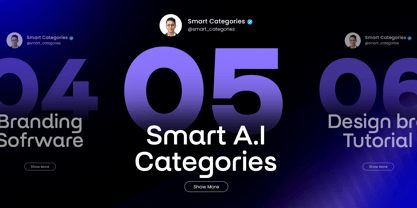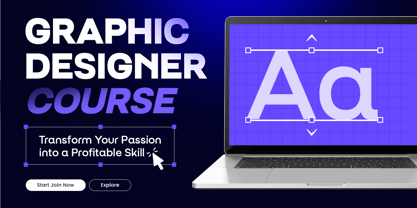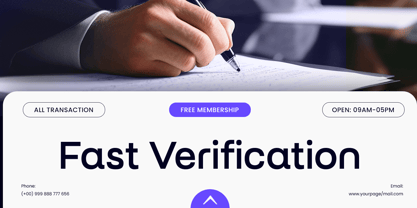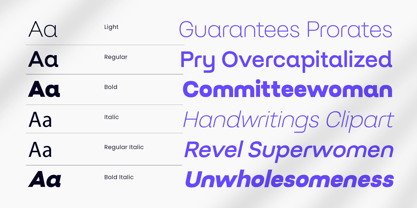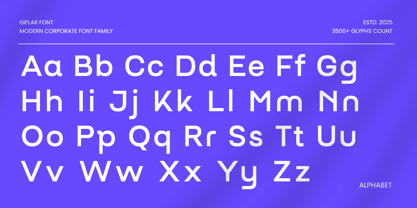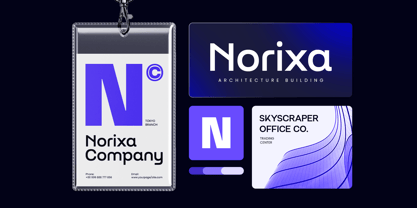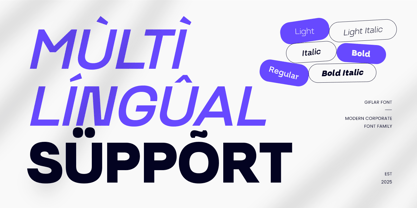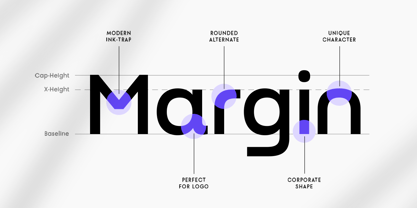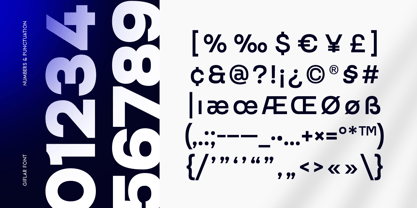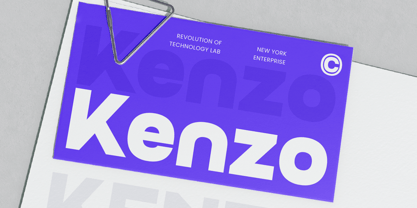
GIFLAR is a modern corporate font crafted for professional branding and business-focused design projects. With its clean, geometric letterforms, GIFLAR offers a polished and versatile style perfect for:
Company logos
Business presentations
High-impact marketing materials
Whether you’re designing for a corporate identity, a consulting firm, or a modern digital platform, GIFLAR provides a sleek and professional touch. Its balance of elegance and clarity ensures your brand communicates confidence and credibility across all applications.
Font Features:
Clean, modern letterforms with a professional aesthetic
Ideal for logos, corporate branding, and business materials
Includes uppercase, lowercase, numerals, and punctuation
Minimal, sleek design suitable for both print and digital projects
OpenType features for advanced typographic flexibility
Multilingual Support:
Supports characters for a wide range of languages including:
Afrikaans, Albanian, Asu, Basque, Bemba, Bena, Breton, Chiga, Cornish, Dutch, English, Estonian, Filipino, Finnish, Friulian, Galician, German, Gusii, Indonesian, Irish, Italian, Kabuverdianu, Kalenjin, Kinyarwanda, Luo, Luxembourgish, Luyia, Machame, Makhuwa-Meetto, Makonde, Malagasy, Manx, Morisyen, North Ndebele, Nyankole, Oromo, Portuguese, Quechua, Romansh, Rombo, Rundi, Rwa, Samburu, Sango, Sangu, Scottish Gaelic, Sena, Shambala, Shona, Soga, Somali, Spanish, Swahili, Swedish, Swiss, and more.
Strengthen your brand identity with GIFLAR – the perfect font for modern corporate design. ✨